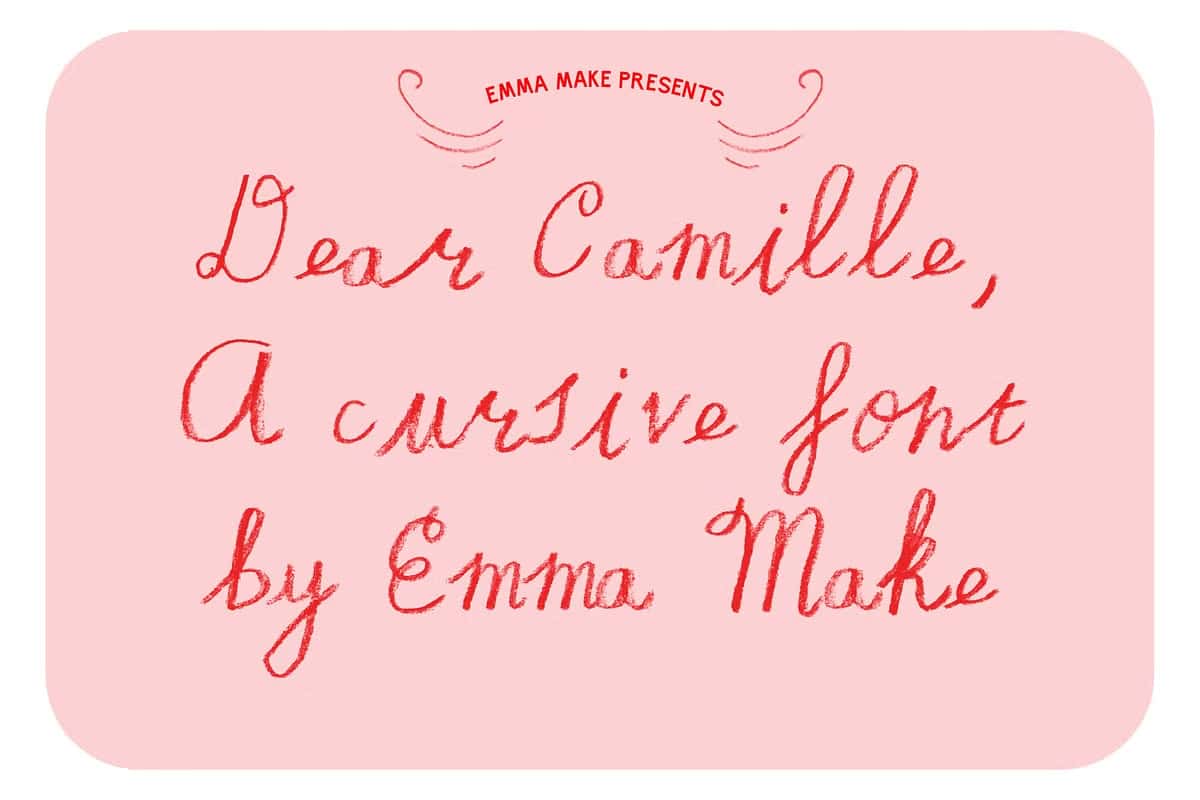
A truly cursive font; Dear Camille, is a sweet handwritten pencil crayon type with as much tenderness and character as a love letter. Perfect for letters, stationery, invites and websites.